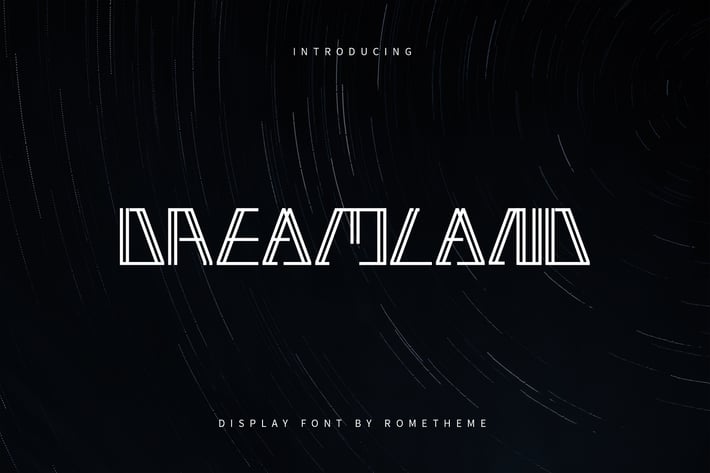
Dreamland - Display Font
Rometheme
Dreamland is a display typeface with elegant in every single letter. This font looks modern,
readable, stylish, catchy and easy to use.
Dreamland Font is the best choice for your professional design projects, including : logo, poster design,
t-shirt, headline, flyer, cd cover album, quotes, business card, branding, magazines, social media, advertisements,
product designs, or something that need modern or futuristic looks.